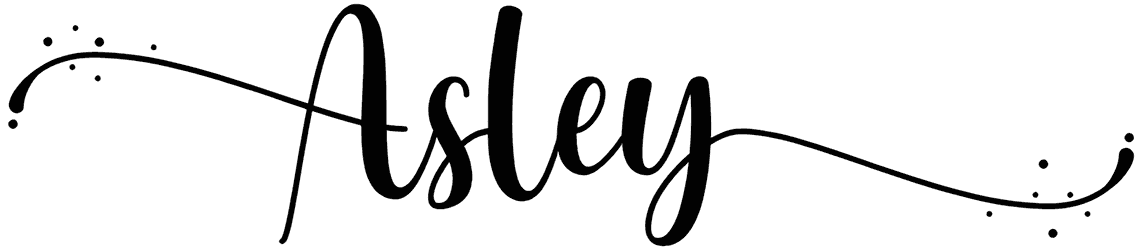
Asley Font
Are you searching for a modern outward to design your words with a fascinating and adorable face? Well, Asley, as a calligraphy font can offer you an option to do this. As a curvy font, Asley with its soft lines would be a ravishing display for a lot of designs such as product logos, Instagram quotes, greeting cards, or more of the same.